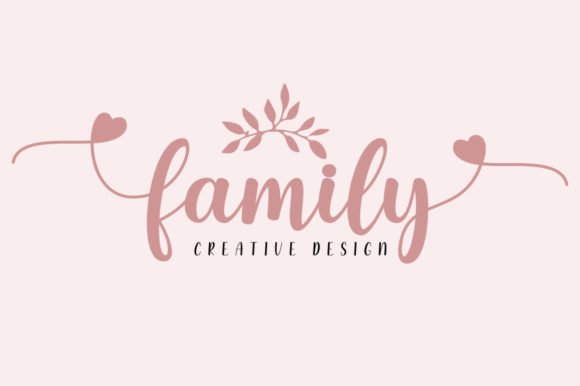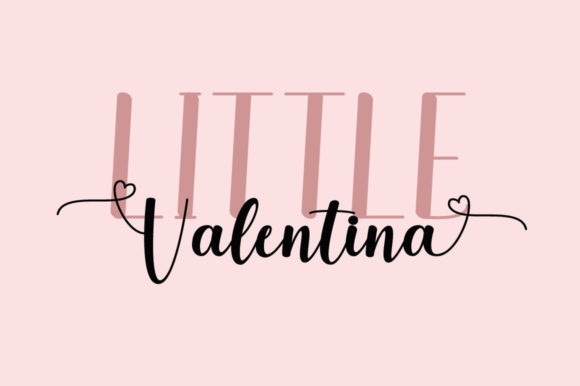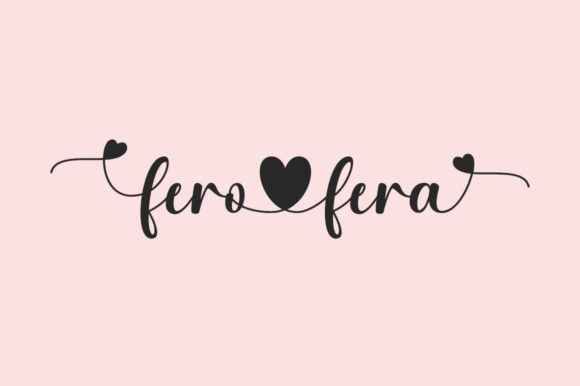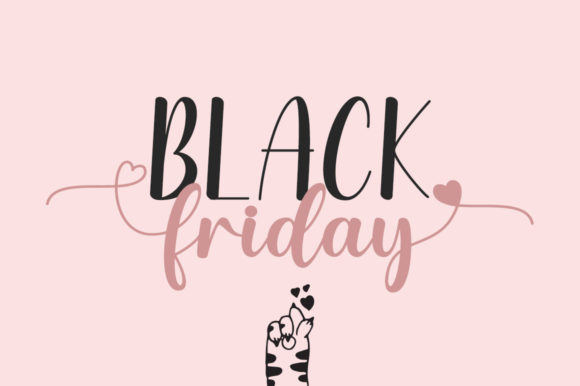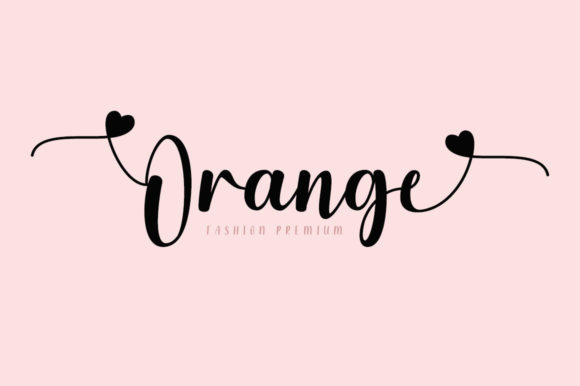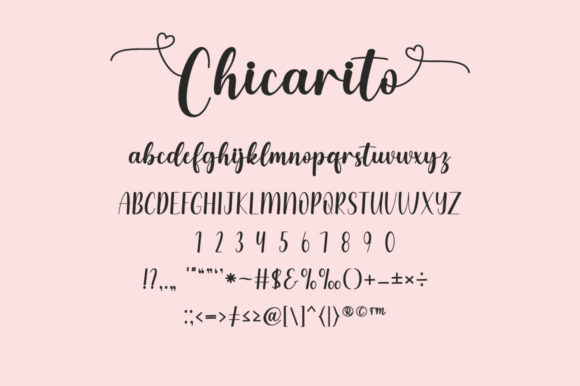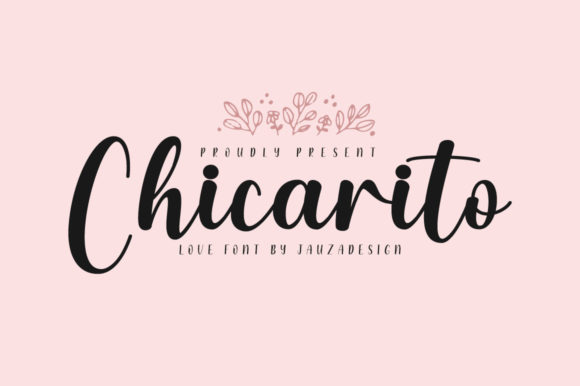
Introducing Chicarito Font: The Ultimate Romantic Script Font for Designers and Crafters
In the world of typography, fonts play a crucial role in conveying emotions and setting the tone for a design project. For designers and crafters looking for a font that exudes romance and elegance, Chicarito Font is an excellent choice. This stunning script font is designed to add a touch of sophistication and whimsy to any project, making it perfect for a wide range of applications, from wedding invitations and stationery to branding and packaging.
What Makes Chicarito Font Special?
Chicarito Font is a thin lettered and romantic script font that is sure to captivate your audience. Its delicate and flowing lines evoke a sense of nostalgia and charm, making it ideal for designers and crafters who want to create beautiful and eye-catching designs. But what sets Chicarito Font apart from other script fonts is its PUA (Private Use Area) encoding. This means that you can access all of the amazing glyphs and ligatures with ease, giving you unparalleled creative control over your designs.
Key Features of Chicarito Font
- Thin Lettered and Romantic Design: Chicarito Font features a delicate and elegant design that is perfect for creating romantic and whimsical designs.
- PUA Encoded: With PUA encoding, you can access all of the amazing glyphs and ligatures, making it easy to create unique and eye-catching designs.
- Highly Versatile: This font is perfect for a wide range of applications, from wedding invitations and stationery to branding and packaging.
Uses for Chicarito Font
Chicarito Font is an incredibly versatile font that can be used in a variety of design projects. Here are some ideas to get you started:
- Wedding Invitations and Stationery: Create beautiful and romantic wedding invitations, stationery, and other paper goods with Chicarito Font.
- Branding and Packaging: Use Chicarito Font to add a touch of elegance and sophistication to your brand’s packaging and marketing materials.
- Signs and Banners: Create eye-catching signs and banners with Chicarito Font that are sure to grab attention.
- Digital Designs: Use Chicarito Font in your digital designs, such as social media graphics, blog posts, and email newsletters.
Tips for Using Chicarito Font
To get the most out of Chicarito Font, here are some tips to keep in mind:
- Pair with Other Fonts: Experiment with pairing Chicarito Font with other fonts to create a unique and eye-catching design.
- Use in Combination with Images: Combine Chicarito Font with beautiful images to create a stunning design that tells a story.
- Experiment with Colors: Try out different colors and color combinations to find the perfect look for your design.